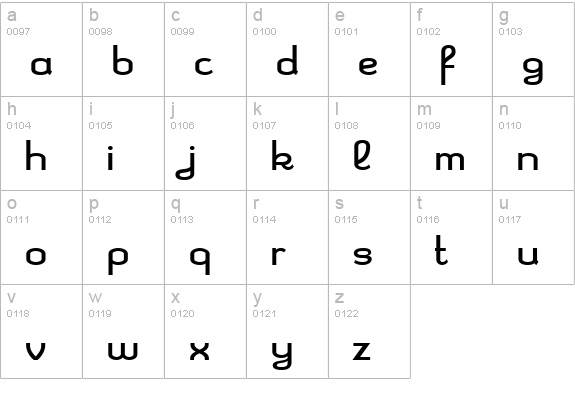
Kleptocracy Expanded Font Details
Kleptocracy Expanded is a distinctive, extended-width variant in the Kleptocracy typeface family \xE2\x80\x94 well suited to design and typography projects.
Introducing Kleptocracy Expanded font, a stylish and sophisticated typeface that exudes elegance and charm. This versatile font is perfect for adding a touch of class to your designs, whether for branding, advertising, or editorial purposes. Kleptocracy Expanded features sleek lines and a modern aesthetic that will make your text stand out. What sets Kleptocracy Expanded font apart is its unique expanded design, which gives it a bold and impactful presence. Its clean and crisp letterforms are easy to read, making it ideal for both print and digital projects. Whether you're designing a sleek logo or crafting a striking headline, Kleptocracy Expanded font is sure to make a statement. And the best part? Kleptocracy Expanded font is available for free download at FontsMarket.com. That's right, you can add this stunning typeface to your collection without spending a dime. So why wait? Elevate your designs with Kleptocracy Expanded font today!